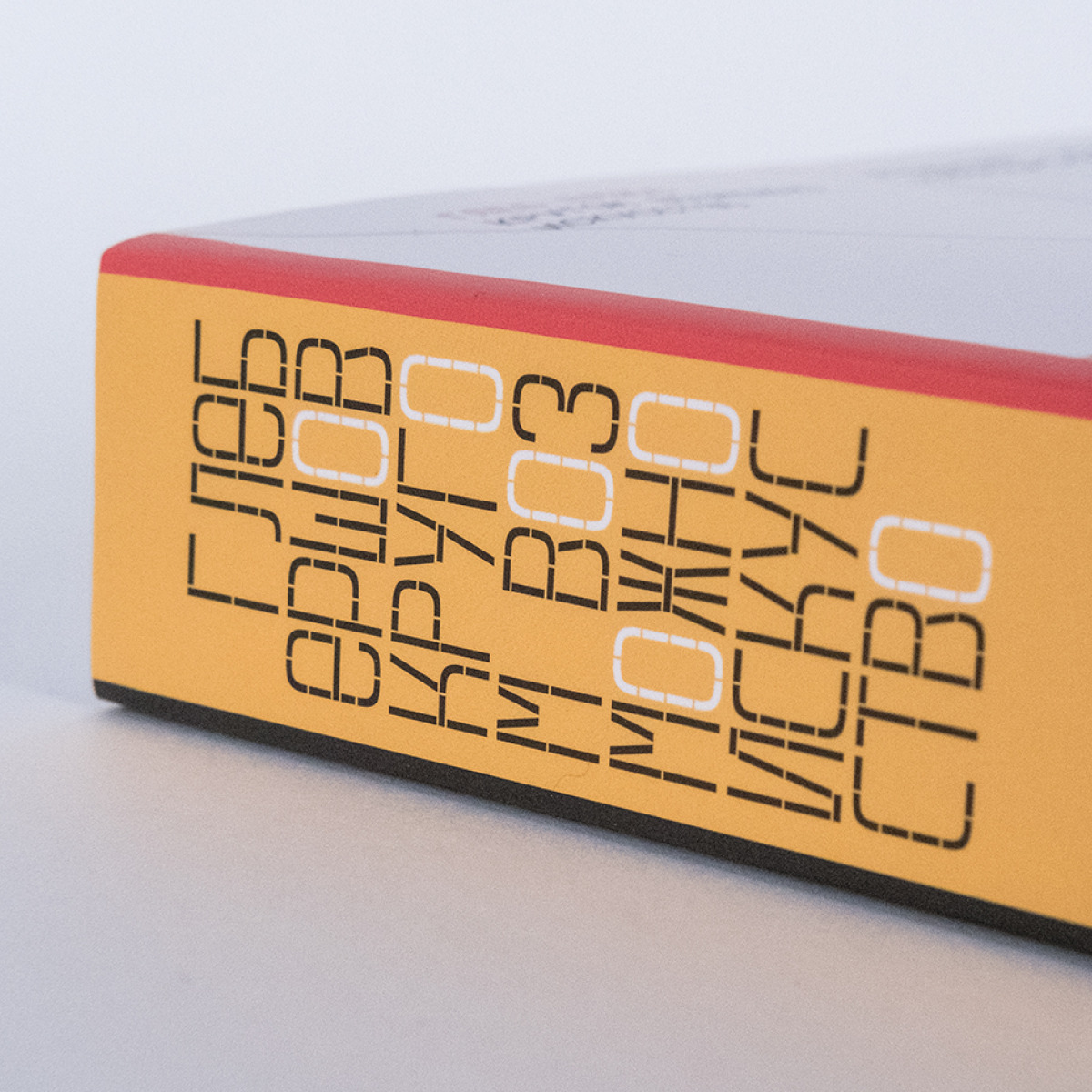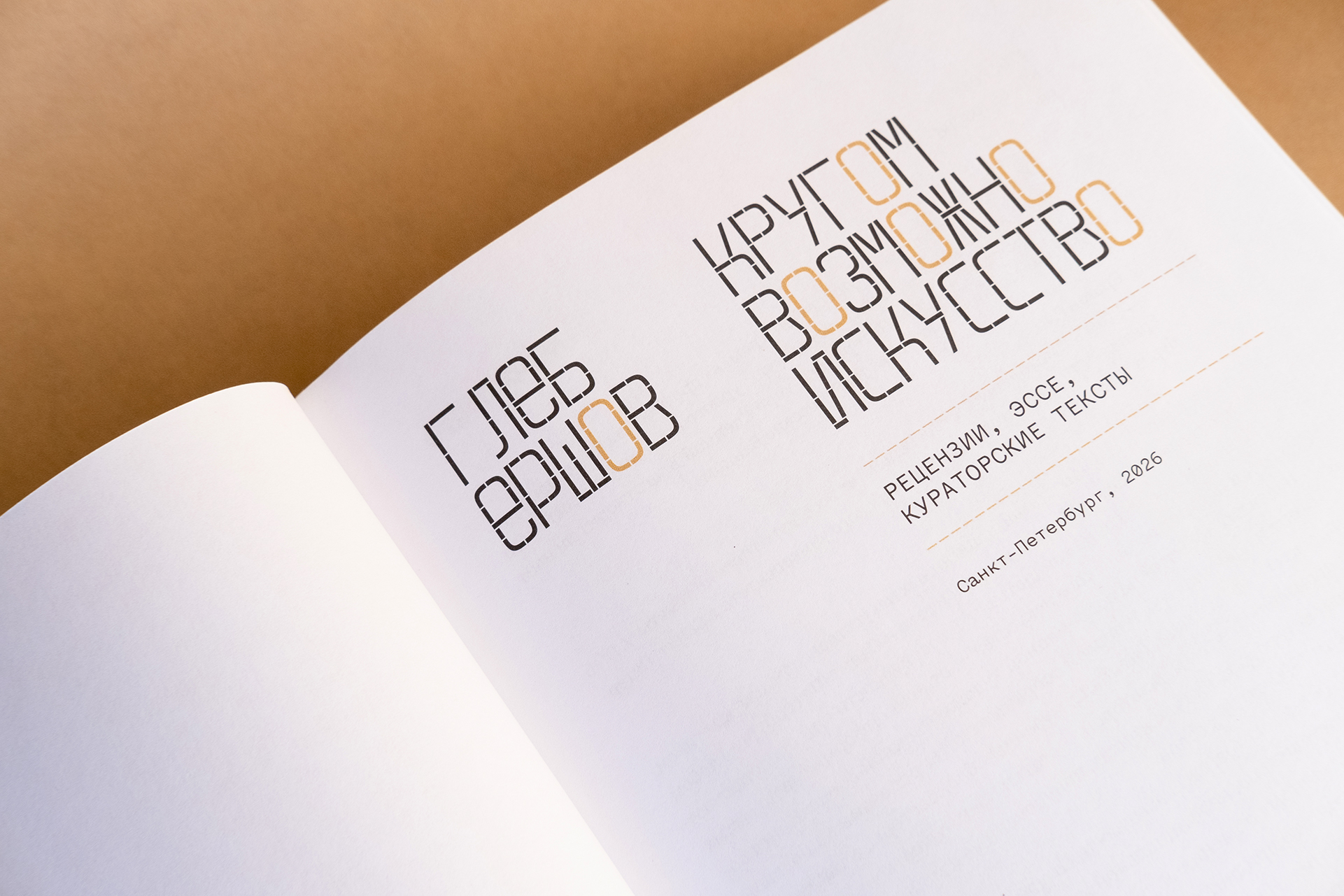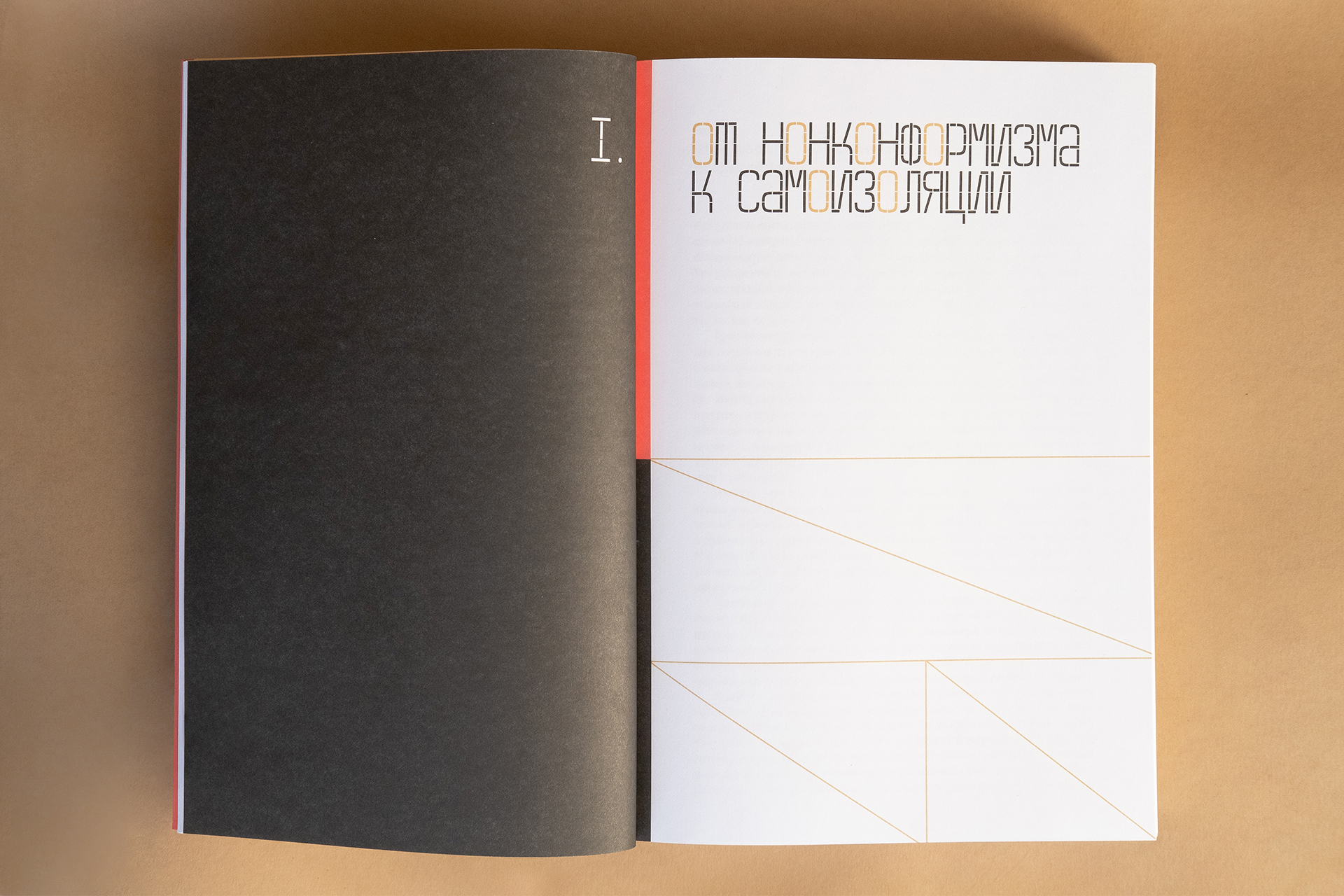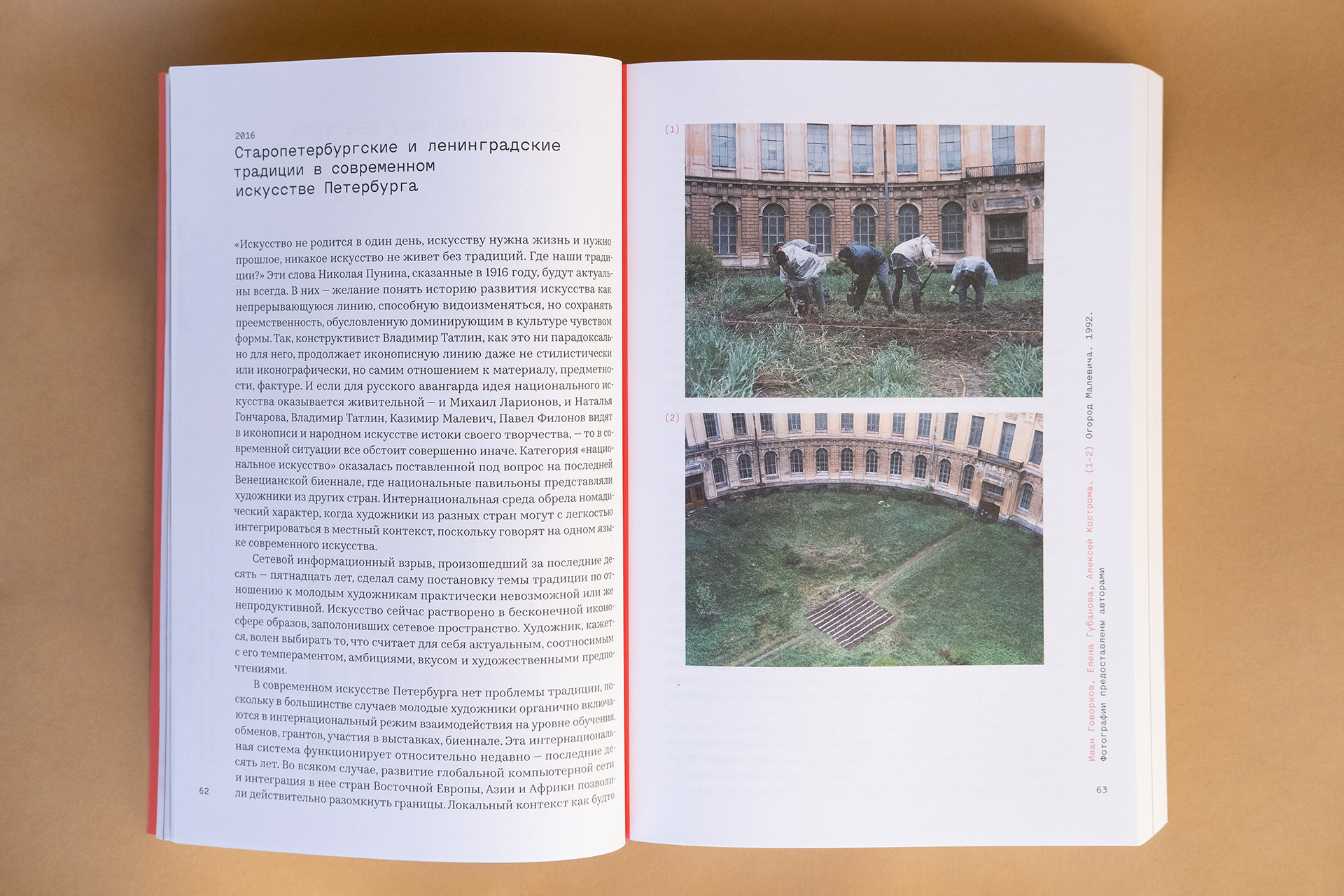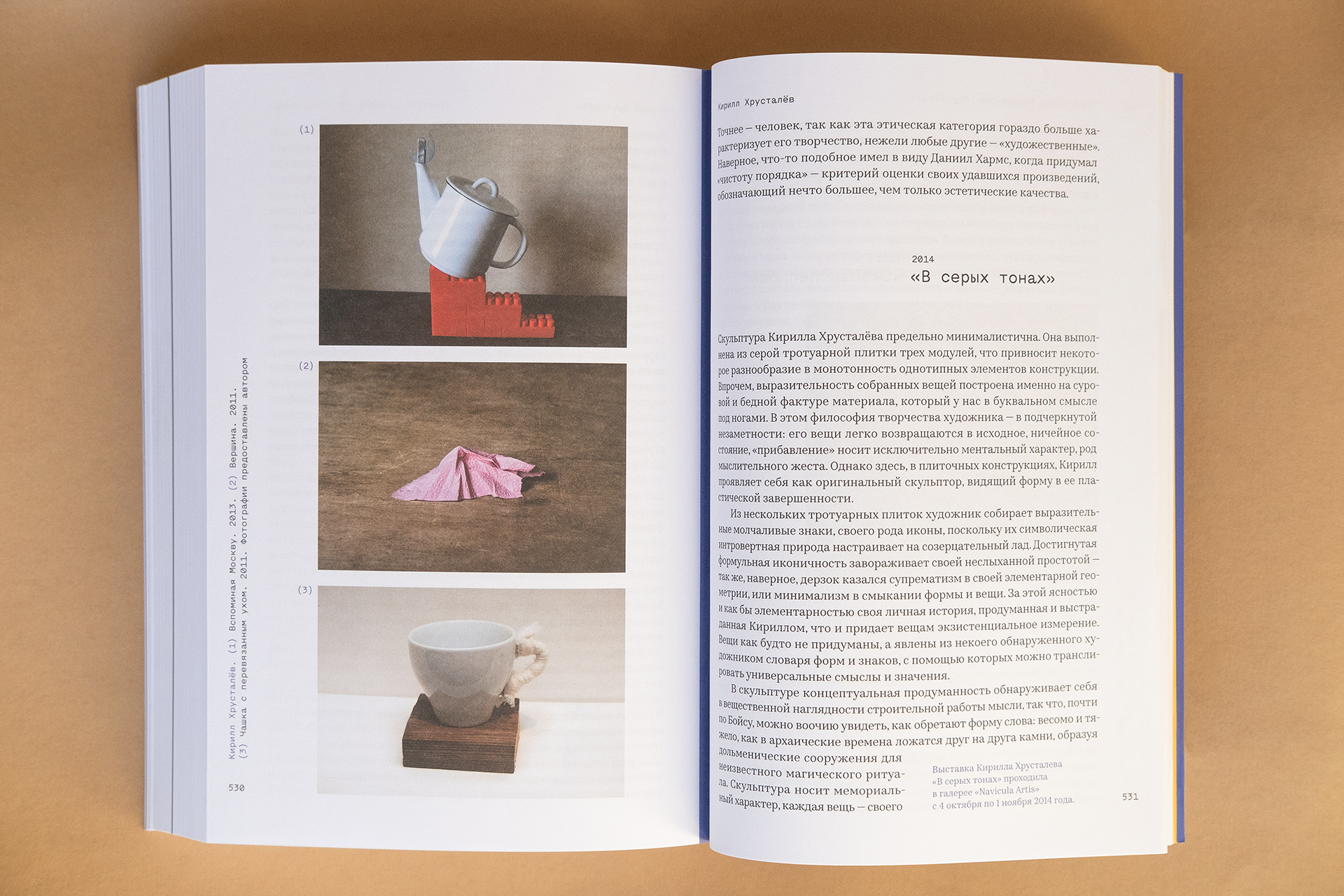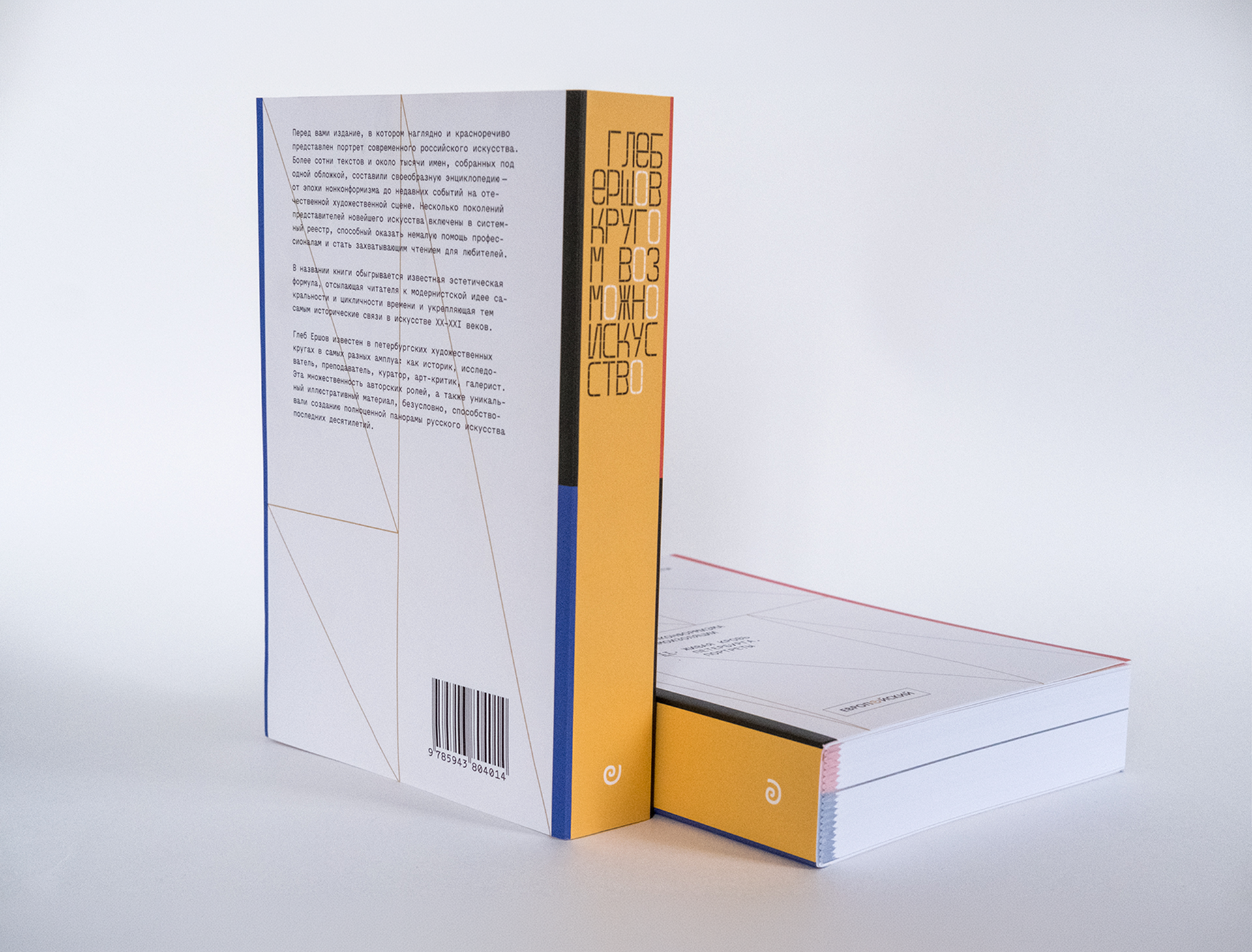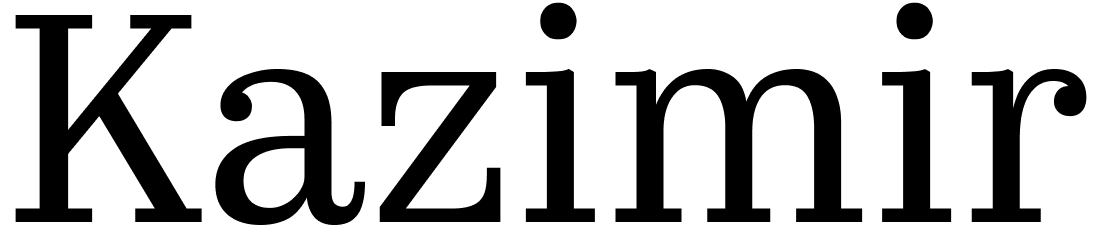
Retiler and Kazimir in use: Art Is Possible All Around Us
A text serif and a modular stencil font in a contemporary art history textbook
Art Is Possible All Around Us is a collection of articles written over the past thirty years by Gleb Ershov, art historian and professor at the European University at St. Petersburg. The book is a kind of profile of Russian art spanning from the 1990s to 2020s. Menoe by Hungarumlaut is used for the titles; body text is set in Kazimir Text by CSTM Fonts; Rodion Ilyukhin’s Retiler was chosen for the publication’s spine and its flyleaf. Trofim Popov designed the book.
Kazimir Text is part of a large text collection by CSTM Fonts — Kazimir + Kazimir Text — characterised by lower contrast (compared to Kazimir) and an expanded character set. Kazimir Text’s 22 styles and two variable fonts support extended Latin and Cyrillic.
Retiler is a modular typeface with a brutal, simple structure, which makes it a perfect choice for DIY projects, whether it’s a stencil graffiti, a pop-up café’s menu, or a scoreboard for an amateur football tournament.